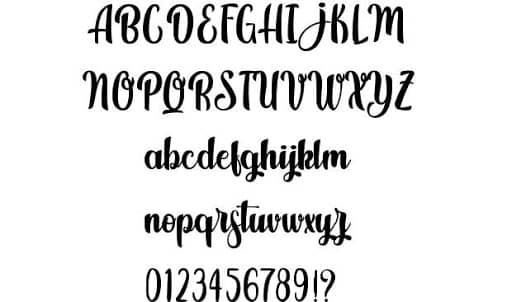
Kindly Jasmine Font
Kindly Jasmine Font is a high-quality font that comes in a variety of styles. On September 10, 2018, Typhoon Type – Suthi Srisopha developed the font.
Kindly Jasmine Typeface is a moderate font with a diversity of themes to choose from. The font can be downloaded for free and used for personal purposes. This font’s free version includes all uppercase and lowercase letters and a few special characters. TrueType and OpenType fonts both seem to be available. This font is available for Windows, Mac OS X, Linux, Cricut, Silhouette, and other machine tools. The typeface comes with various stylistic sets that will enhance the beauty and attractiveness of your writing.
Design, theme styling, wedding receptions, occasions, t-shirts, icons, medals, logos, and other creative endeavours are great places to use Kindly Jasmine Font. This font is best suited for writing quotes as well. It adds a sophisticated touch to any project. It can be used in a variety of writing projects as a Script font.
| Style | Script |
| Designer | Typhoon Type – Suthi Srisopha |